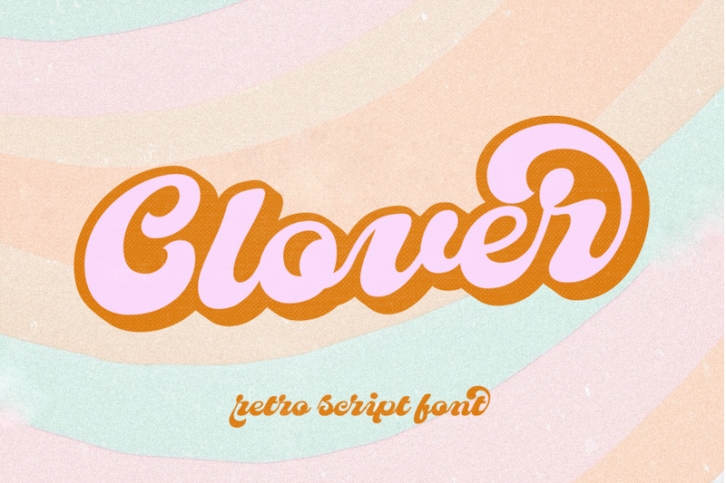
Clover is a groovy/retro handwritten script font.
There are two different styles of fonts included - regular and shadow. Layer these fonts to create fun and unique words and quotes!
This font is perfect for retro designs, procreate, branding, shirts, logos, procreate, stickers, cricut projects, instagram, social media and more!
• Clover Regular
• Clover Shadow